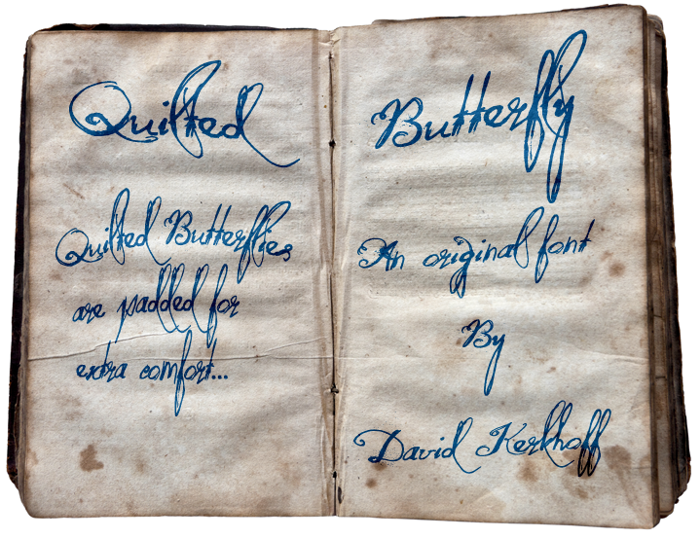
Quilted Butterfly Font
First edition of this font; update with accents and numbers will follow shortly
I love this
This is by far my favorite! I got a new tattoo a couple months ago of my brothers name (who was killed) on my wrist, and it's in this font. Love it!
This font is so pretty...My next tattoo is going to be in this font....<3
I'm making a signature with this font, I can't wait to see how it's going to turn out. It took me forever to find the perfect font, thanks! 😃
intense beauty
Very cool job!
Wow beautiful
Numbers added.